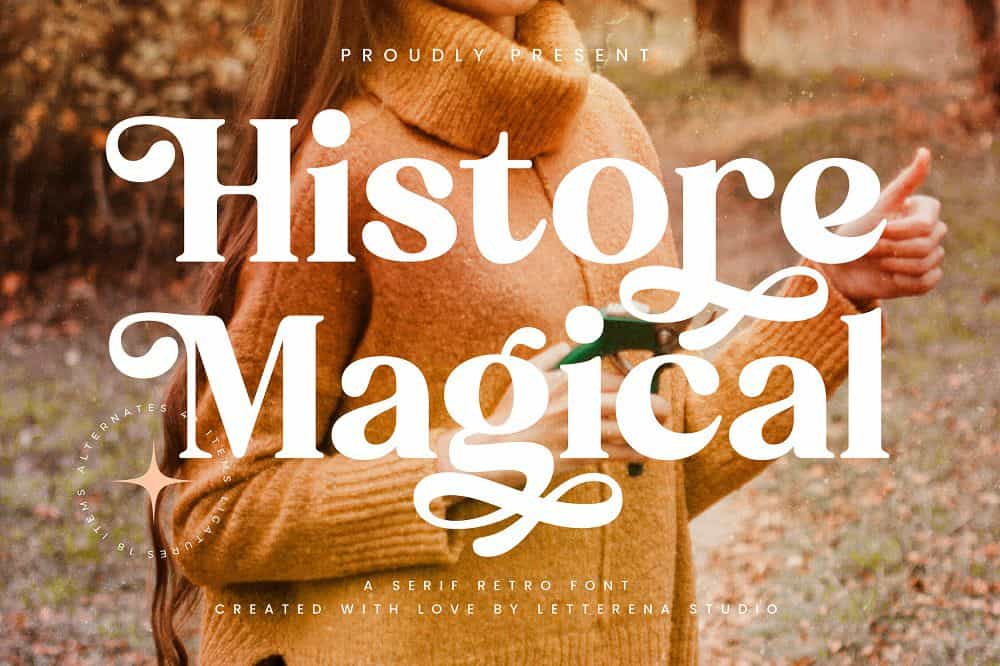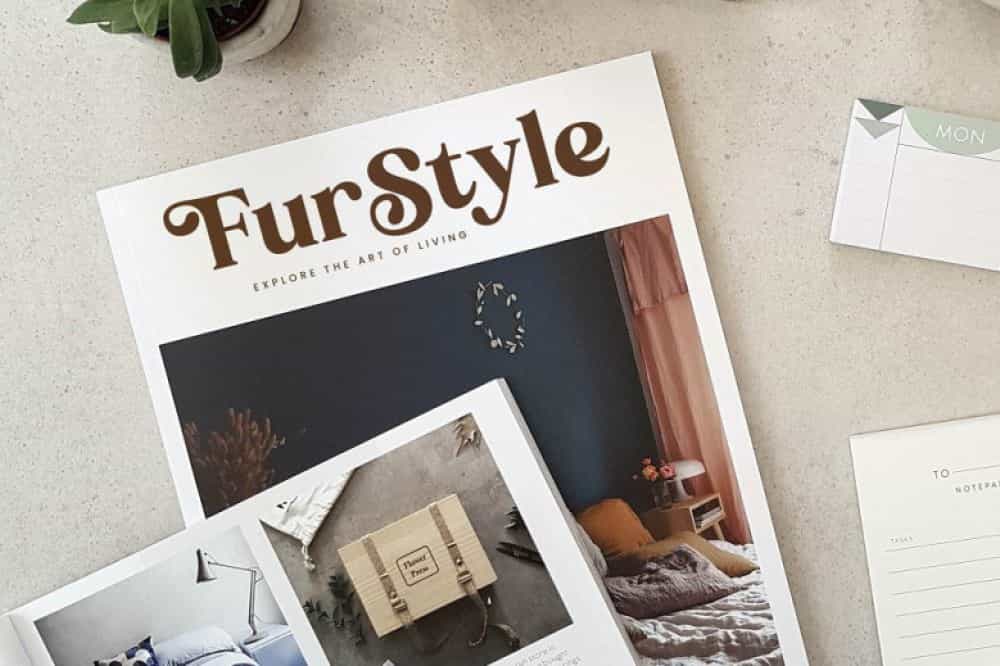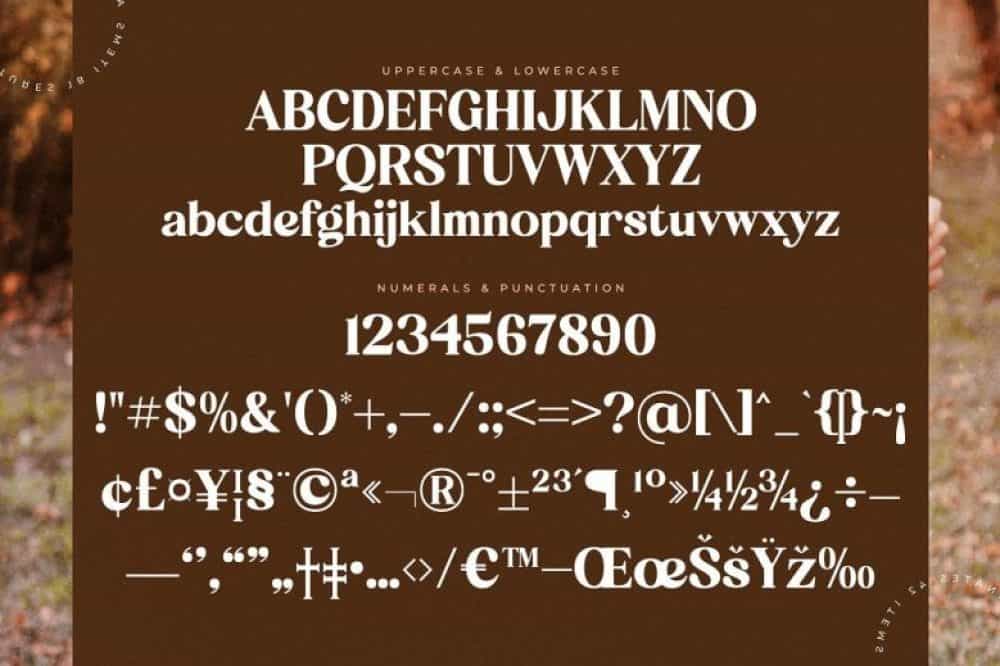
Histore Magical is a modern serif retro font, containing elegant and luxurious taste, that is why this font is perfect for any projects: logos, branding materials, home textiles, product packaging, mugs, quotes, posters, shopping bags, t-shirts, book covers, name cards, invitation and greeting cards, labels, special events and all your other elegant and beautiful projects, which require a touch of luxury Serif style.